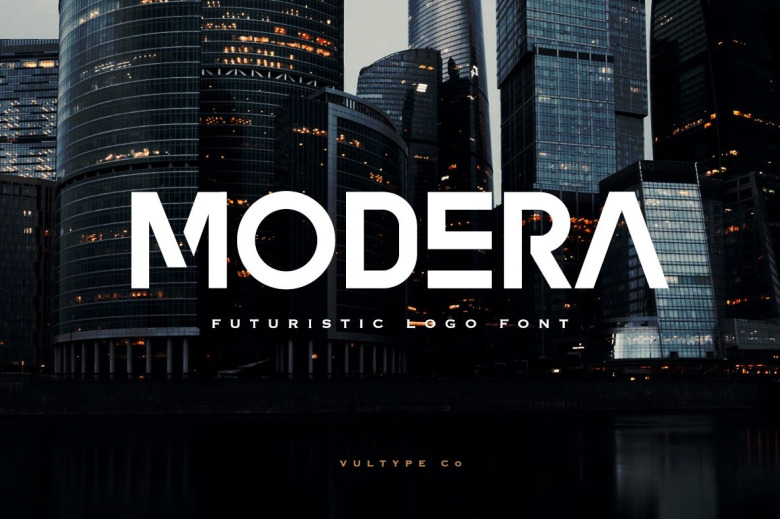
Modera Font
Modera is a cool, bold and thick lettered logo display font. This font is ideal for writing web designs, business cards, or pretty much anything else that requires a modern and futuristic touch.
Modera Display Font